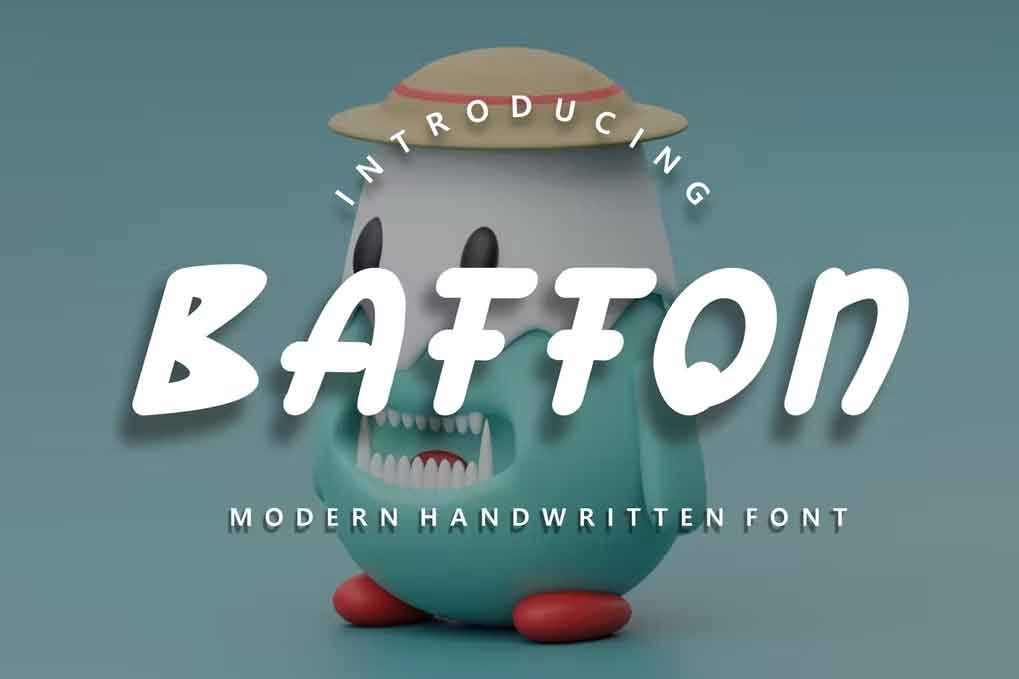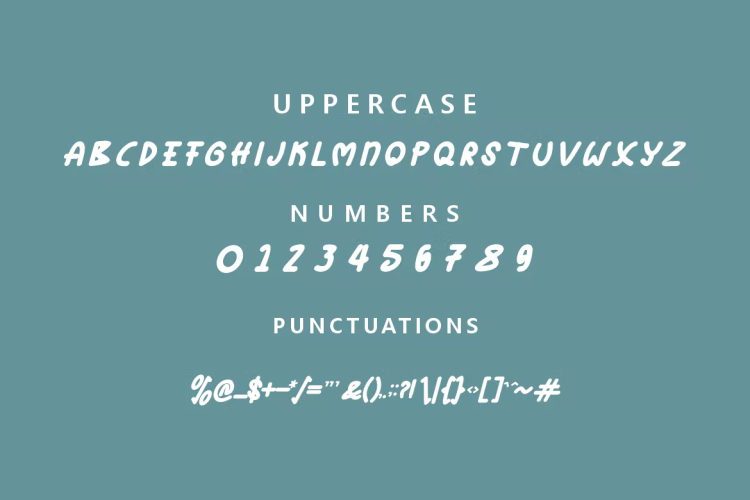
Baffon Modern Font
Baffon modern handwritten font – Handwriting Script Font is a Cute Handwriting typeface, perfectly suitable for creating quotes, Wedding Invitations, lifestyle designs such as logos, title, magazine, and more.
Baffon Modern Font is a Script And Handwritten font that brings a professional and versatile look to your projects. Baffon modern handwritten font – Handwriting Script Font is a Cute Handwriting typeface, perfectly suitable for creating quotes, Wedding Invitations, lifestyle designs such as logos, title, magazine, and more.